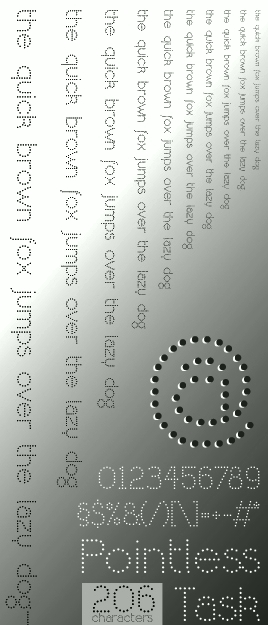
Well done, kix. A very imaginative and effective use of the half circle bricks.
Man I'm a sucker for these dot fonts :)
Not really feeling the "$" though.
It's gorgeous.
Super elegant. Lots of beautiful glyphs.